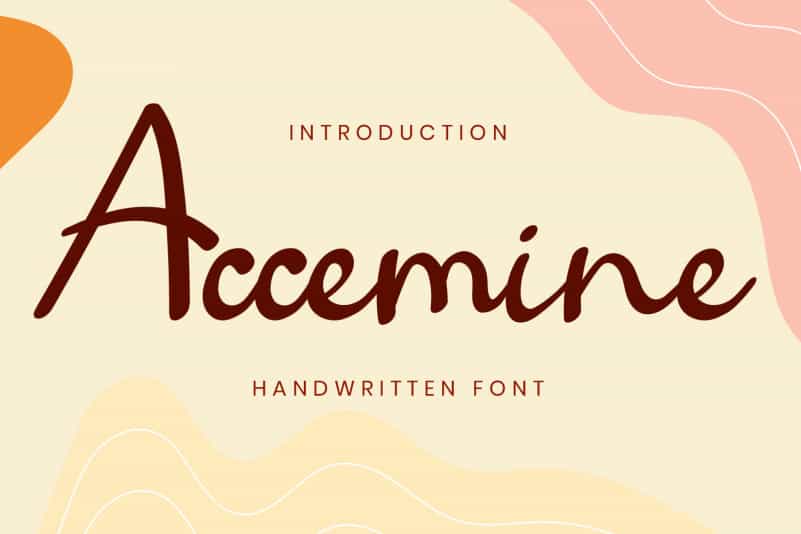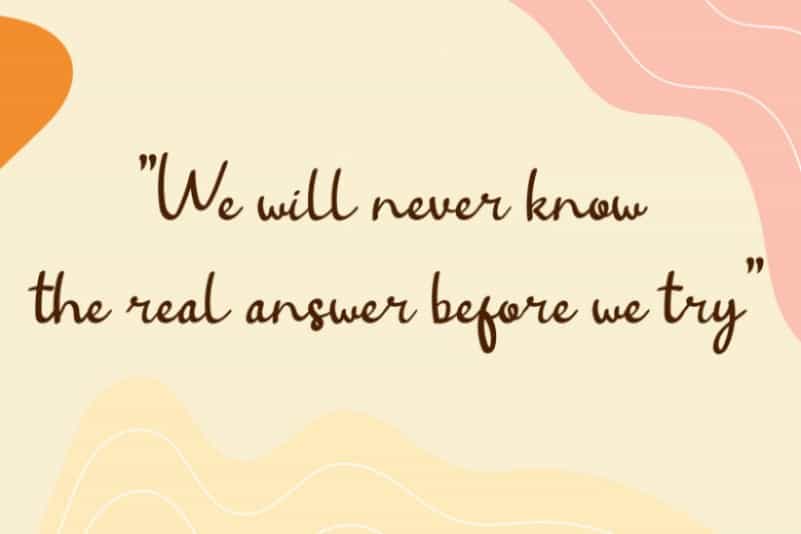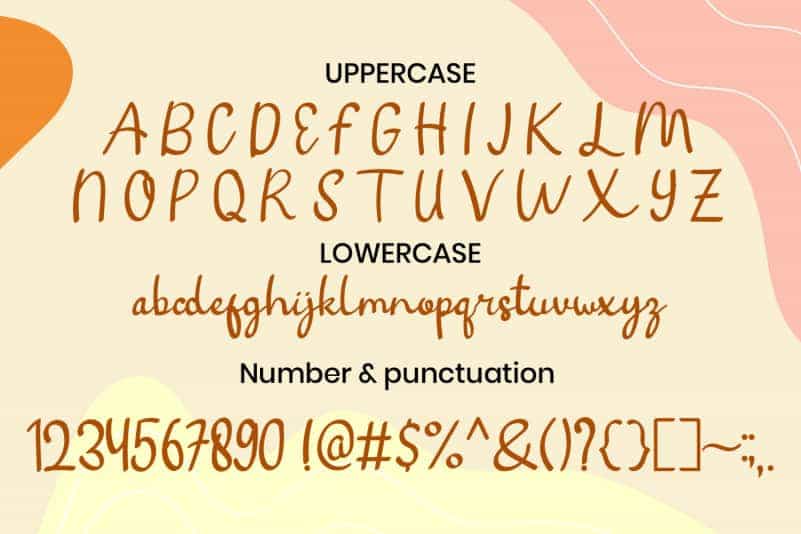
Discover Accemine Handwritten Script Font, part of the Handwritten Script collection—a versatile and unique font perfect for adding a personal touch to your projects. Download it for free and enjoy crafting designs with style, from invitations to social media posts. This font is available exclusively for personal use, giving you the freedom to create without limits. Unlock your creativity with Accemine Handwritten Script Font today!
Acemine is a lovely and fluid handwritten typeface. It is stunning in wedding cards, thank-you cards as well as greeting cards, quotes as well as logos, business cards, and any other design that requires the handwritten touch.